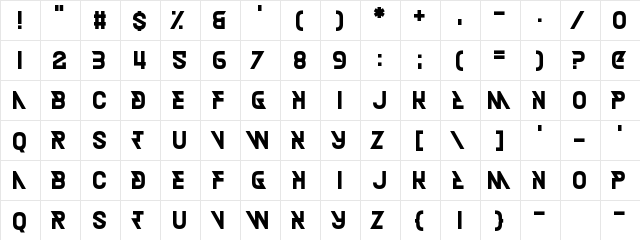
Friend Head Regular
Design Context for Friend Head Typeface
Friend Head takes a measured approach to typography — its balanced proportions and neutral character make it a reliable workhorse for both digital and print work.